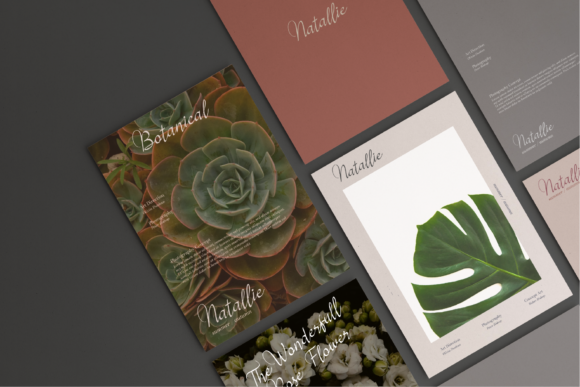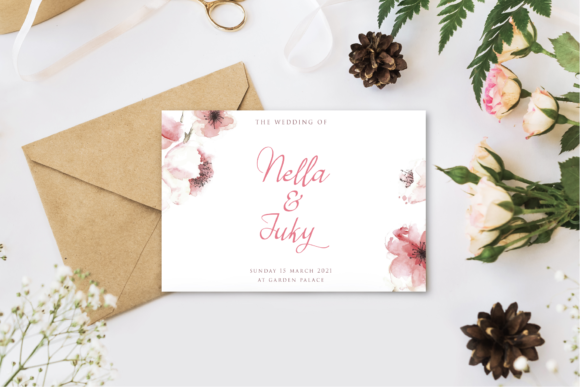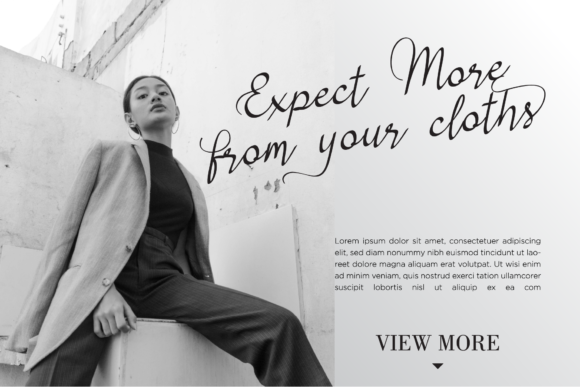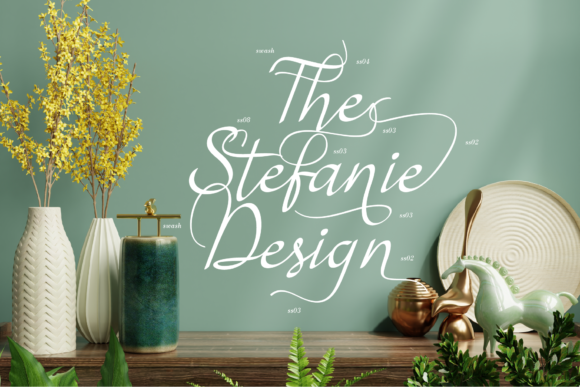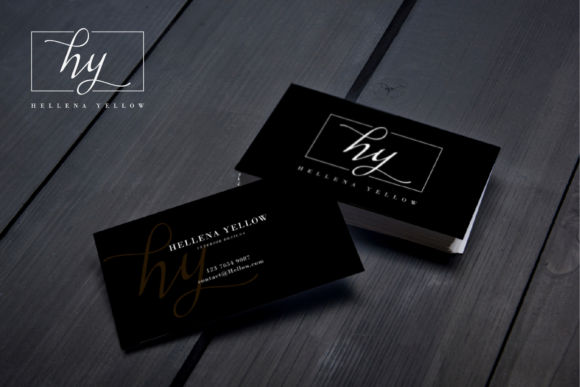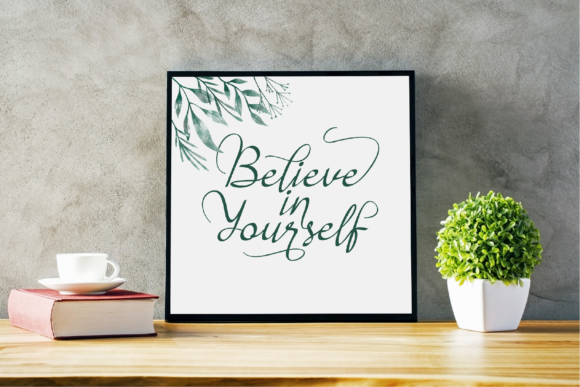
Introduction to Hey Midnight Font
Have you ever found yourself in a creative moment where the perfect font eludes you, and your design just isn’t quite coming together? You envision a luxurious and high-end feel, but the right typography seems to be missing. That’s where the Hey Midnight Font comes in – a stunning light handwritten font that adds a touch of sophistication to any design project.
This versatile design resource is perfect for designers looking to elevate their creative projects with a unique and high-quality font. With its transparent background and PUA encoding, accessing the amazing glyphs and ligatures is a breeze, giving you the freedom to get creative and experiment with your designs.
Key Features of Hey Midnight Font
- High-quality design resource for creative projects, suitable for various applications such as logos, typography, and branding.
- Unique characteristics include a modern and sleek aesthetic, with bold and eye-catching letterforms that can add a touch of sophistication to any design project.
- Perfect for designers and artists looking for a high-quality font to enhance their creative work, whether it’s a personal project or a commercial design.
Honest Review: Hey Midnight Font
As a designer, I’m always on the lookout for high-quality fonts that can elevate my creative projects. The Hey Midnight Font is one such resource that I’ve had the chance to try out. Here’s my honest review.
- ✨ Unique design aesthetic: The Hey Midnight Font has a distinct, modern look that’s perfect for projects that need a touch of sophistication.
- ⚠️ Limited character set: While the font is available in multiple weights, the character set is somewhat limited, which may not be ideal for projects that require a wide range of characters.
- ⚠️ May not be suitable for all designs: The unique aesthetic of the Hey Midnight Font may not be suitable for all types of projects, particularly those that require a more conservative or traditional look.
Overall, I’m impressed with the Hey Midnight Font. While it may have some limitations, its unique design aesthetic and free download make it a valuable resource for designers working on creative projects.
Tips for Getting the Most Out of Hey Midnight Font
To get the most out of Hey Midnight Font, use it sparingly and pair it with other high-quality design resources. Also, experiment with different font sizes, colors, and styles to create a unique design effect.
Common Use Cases for Hey Midnight Font
Hey Midnight Font is a versatile font that can be used in a variety of creative projects, including logos, posters, business cards, and social media graphics. Its high-quality design and transparent background make it a great choice for professional designs.